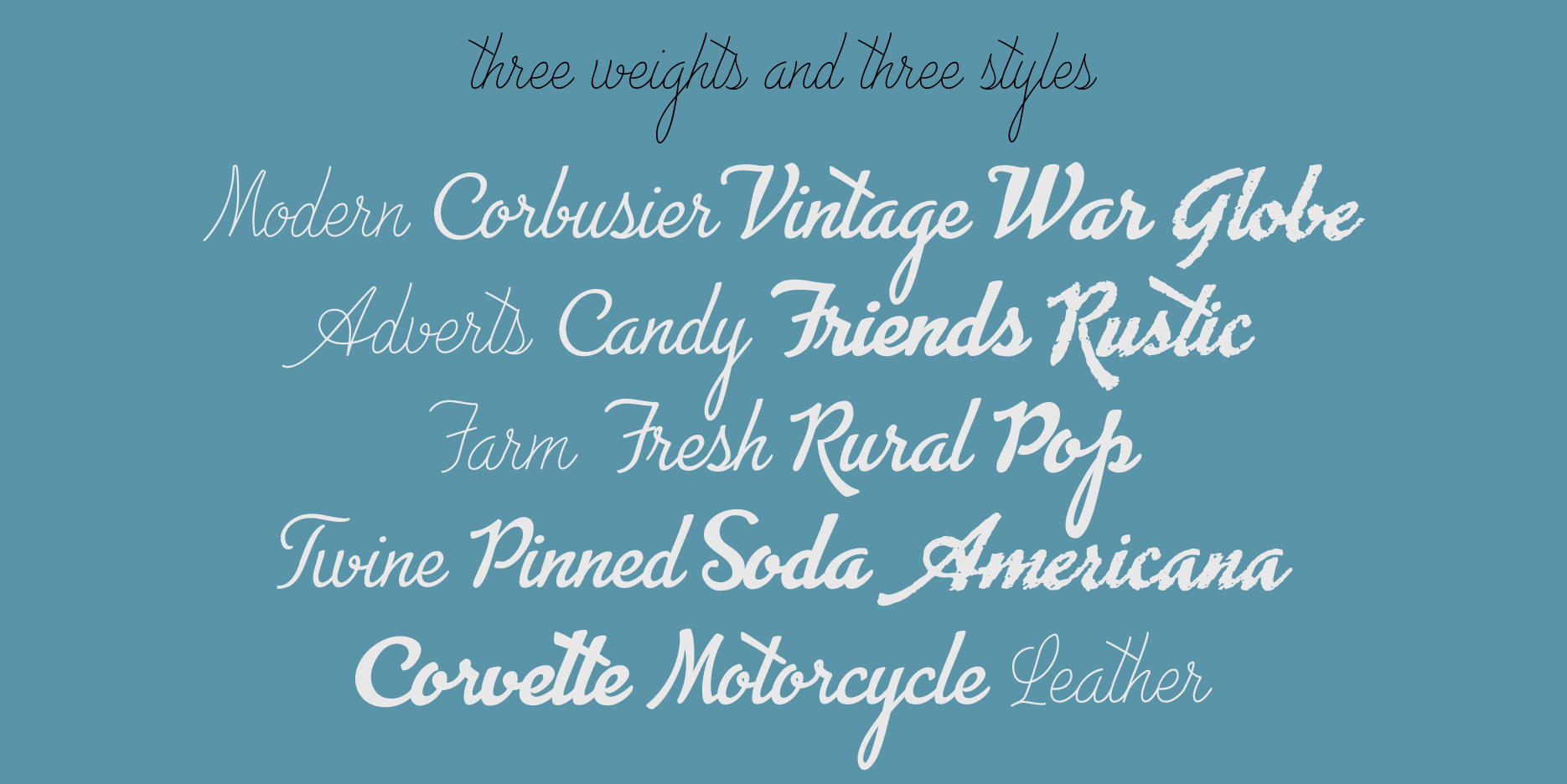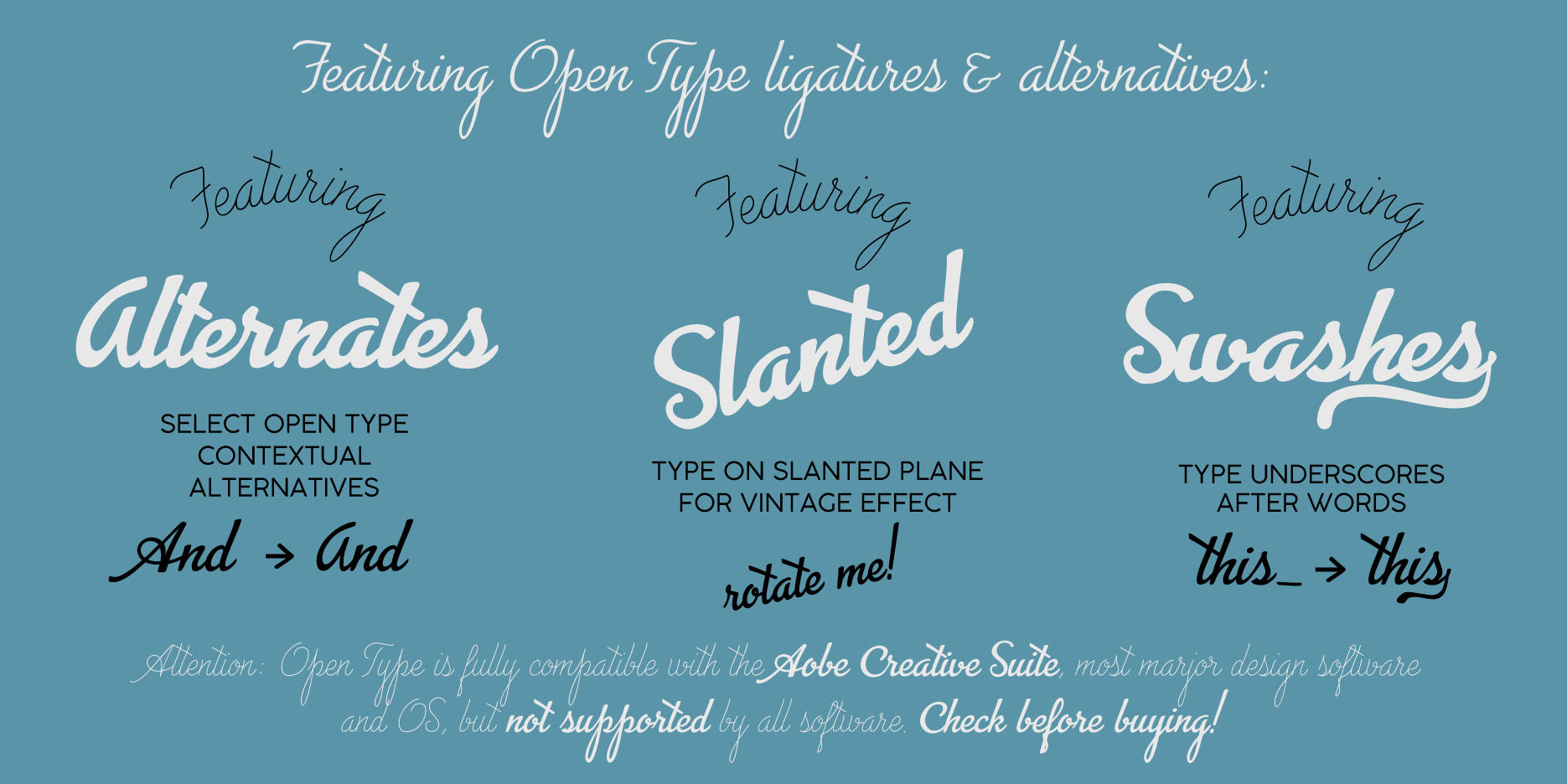
Advertising Script Monoline
Advertising Script Light
Advertising Script
Advertising Script Bold
Advertising Script Chupito Brownie
Designed by Cosimo Lorenzo Pancini with Matteo Chiti, Luca Chiti and Andrea Tartarelli after an original design by Ross Frederic George Version 1.1.1 / released in 2016
Advertsing Script is a brush script typeface inspired by a handmade sample drawn by the calligrapher Ross Frederic George and depicted in  Speedball 1947 Textbook  Manual. Advertsing Scripti has a vintage brush script look, perfect for food packaging, display and logo design and period advertising. The original design has been completely reworked and extended by the Zetafonts Masterclass 2016 Team to provide three lighter weights, a rough and a monoline variant, and to produce an extended character set with open type support for ligatures, alternates, European languages and ending swashes. Advertising Script covers over 40  Show all
Features
• fl fi
Standard Ligatures
• Abcde
Contextual Alternates